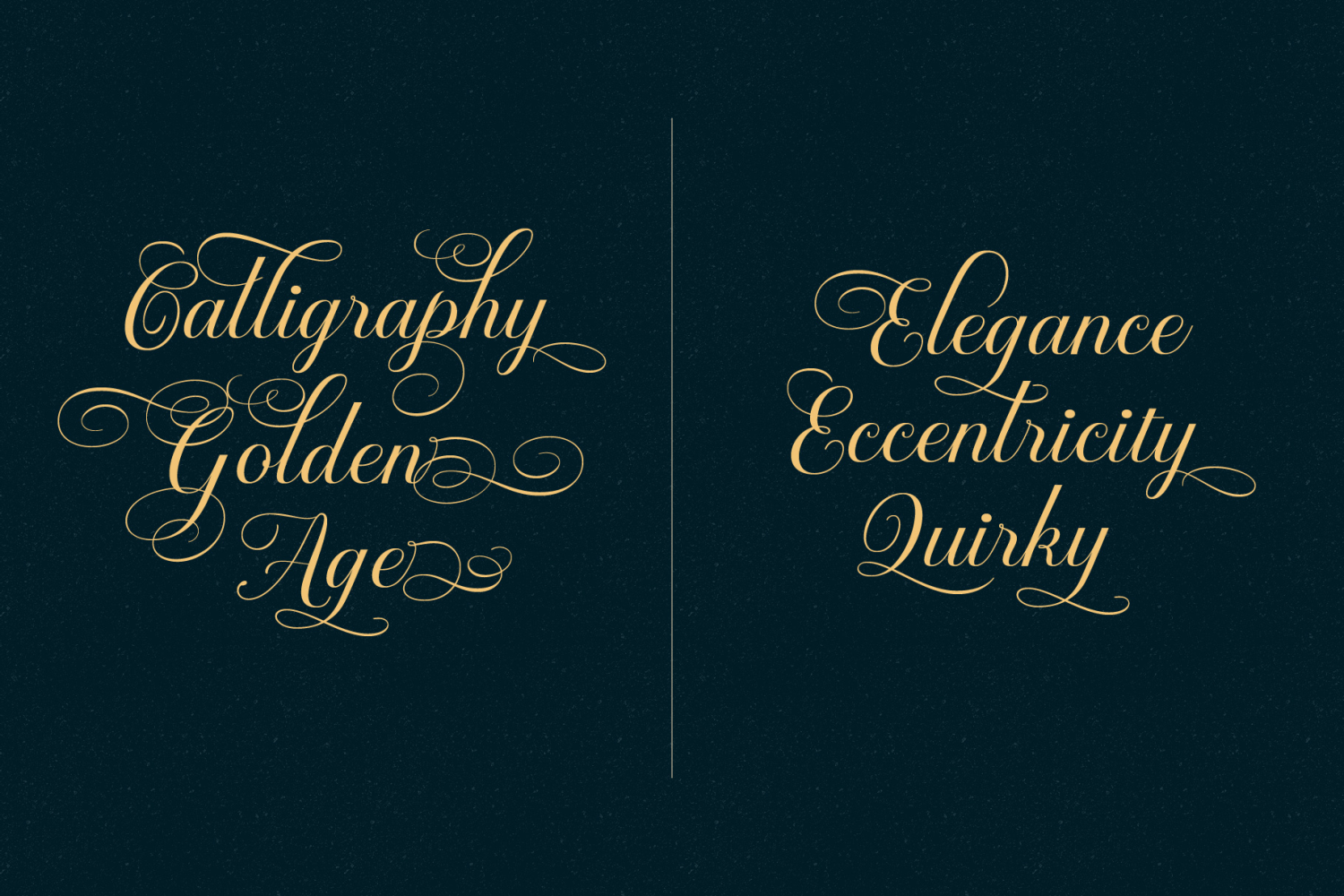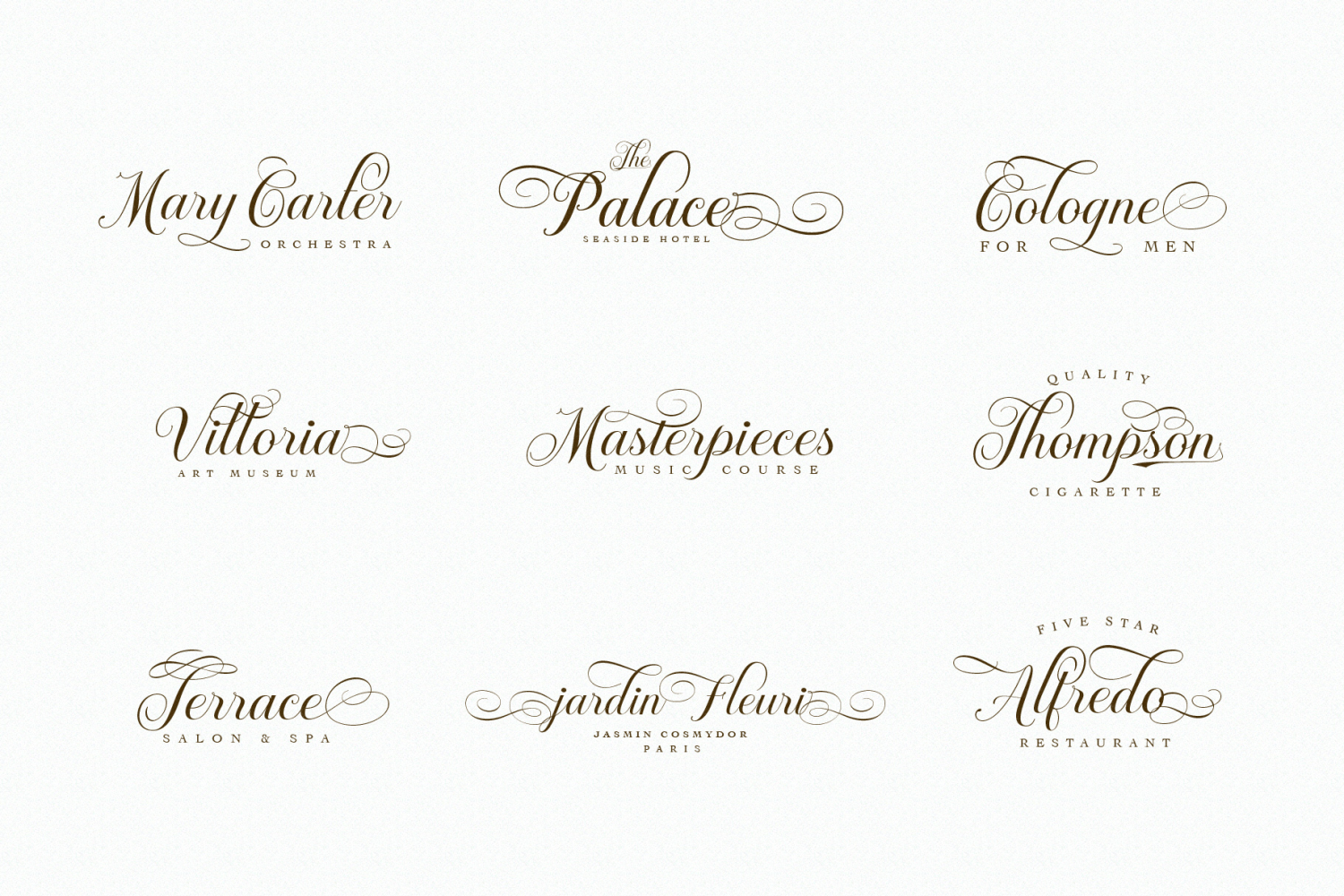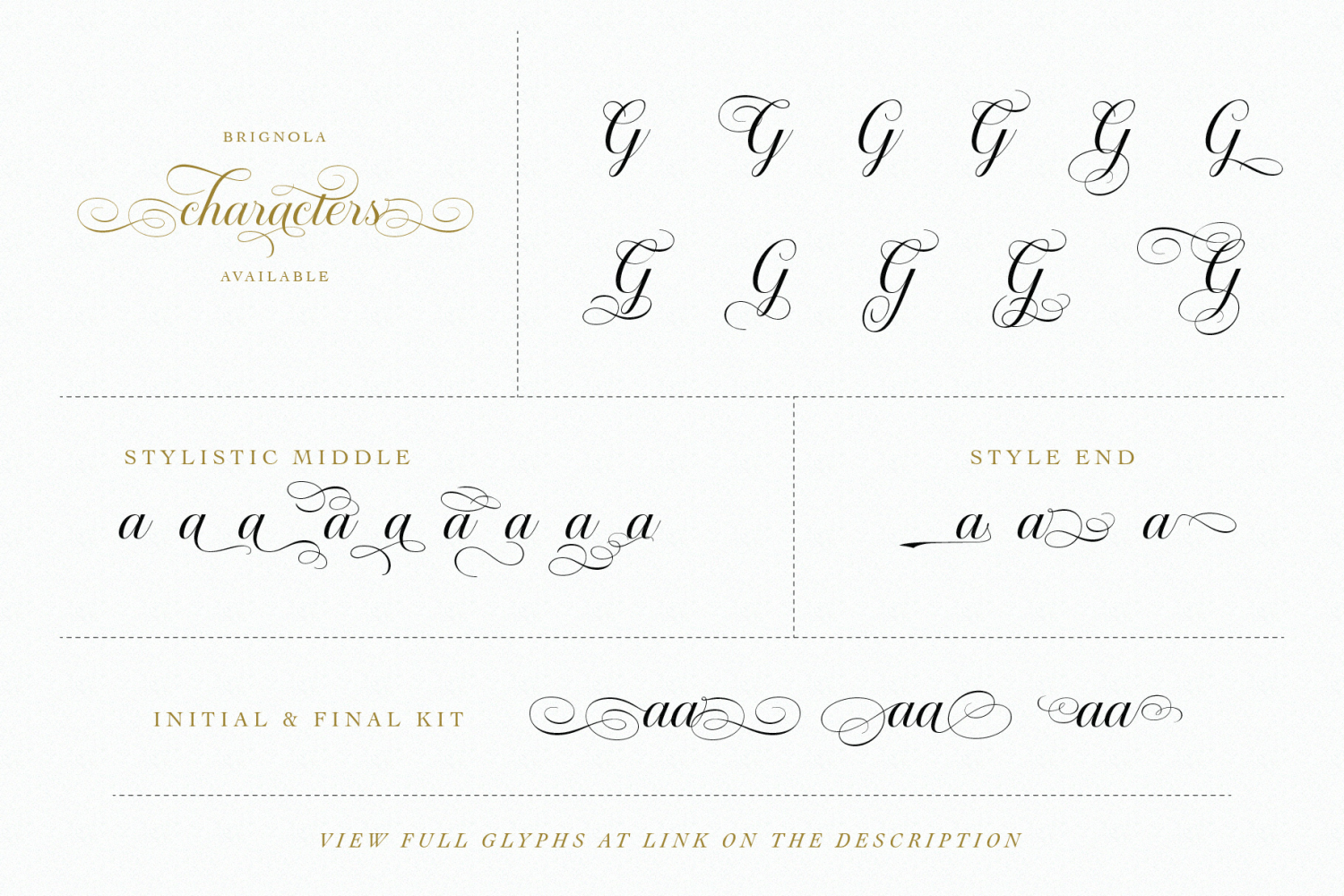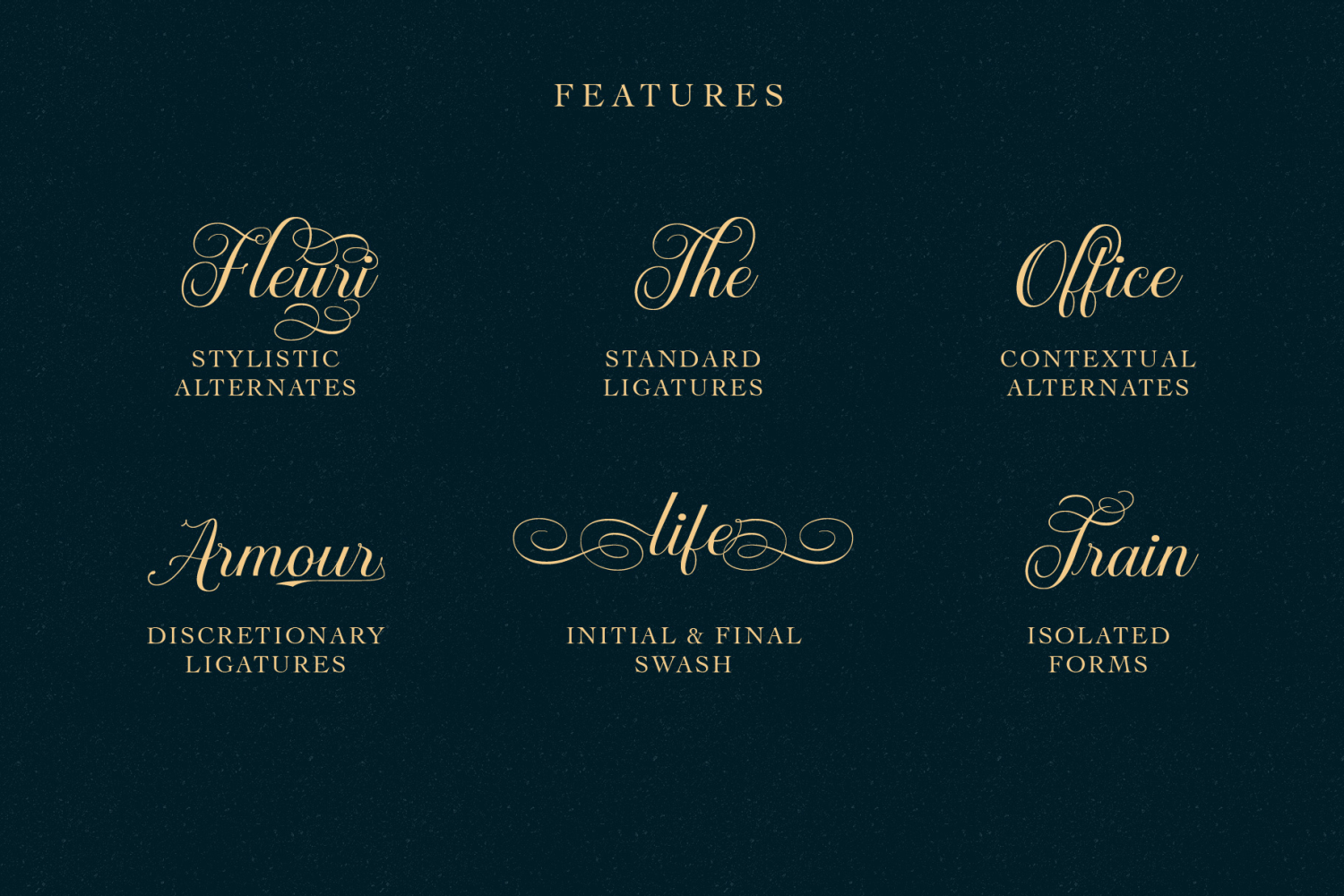
About Brignola
Reading some book of typography inspired me to creating an elegant font. Calligraphy in specific. And I think the calligraphy have an advantage for the alternate characters, It has a tons to explore in just one letter. My exploration of this fonts as…